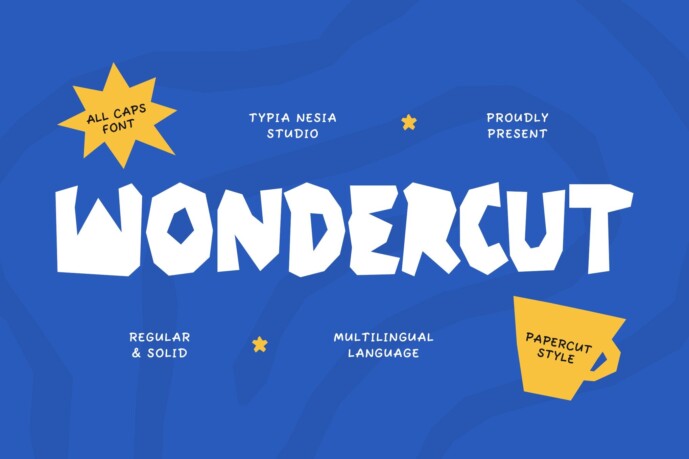
Wondercut Font
Wondercut – Papercut / Paper Cutout Style Font – Playful & Unique Handcraft Display Font
Wondercut is a Papercut / Paper Cutout Style Font that brings the charm of handcrafted paper art to your designs. Its unique cut-out aesthetic and playful irregularity make it stand out, delivering a natural and artistic feel that mimics real paper crafting, Ideal for DIY projects, children’s books, creative posters, greeting cards, scrapbooking, branding, packaging, game design, advertising campaigns, invitations, social media graphics, and any project that requires a unique and artistic touch.
Wondercut is an excellent choice for those looking to infuse a handmade and playful vibe into their projects. It’s perfect for bringing a sense of fun, nostalgia, and creativity to any design.